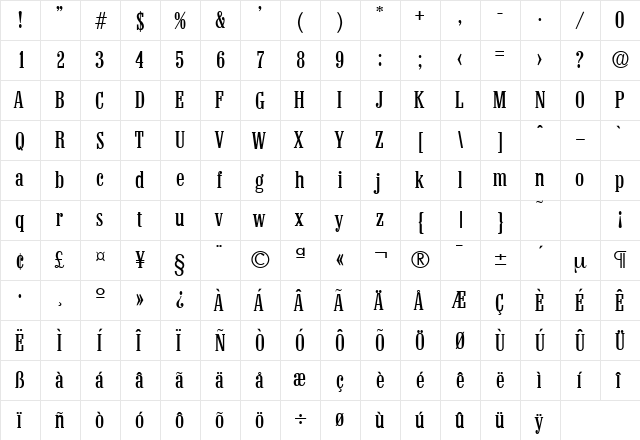
Colonel-Serial DB Regular
Design Context for Colonel-Serial DB Typeface
Colonel-Serial DB offers clean, dependable letterforms without strong stylistic allegiance, making it a practical choice for designers who need flexibility.